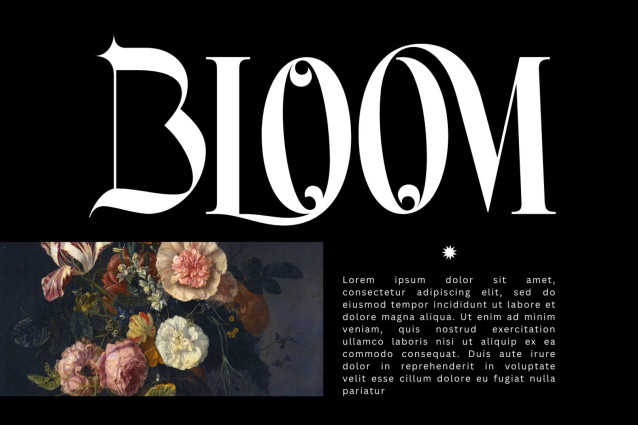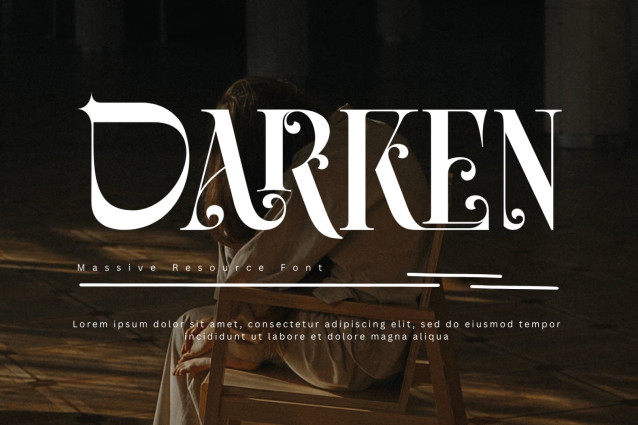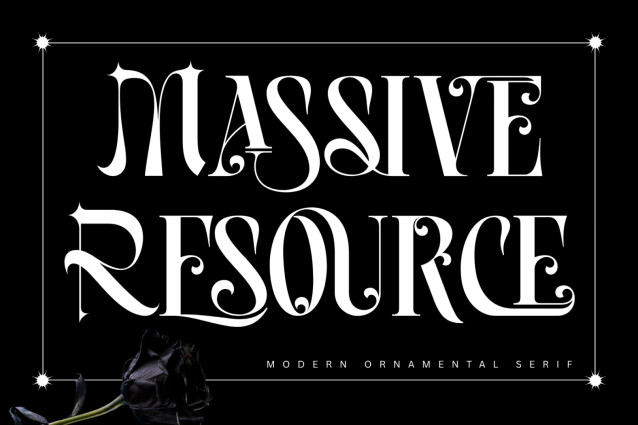
Massive Resource – Elegant Font is an elegant decorative serif display font that blends timeless sophistication with exquisite ornamental details. Inspired by classic Victorian typography and refined Didone aesthetics, this typeface features dramatic high-contrast strokes, graceful curves, and beautifully crafted swashes that add a luxurious and artistic touch to every design. With its ornate terminals, flowing flourishes, and sophisticated letterforms, Massive Resource evokes a sense of vintage charm while maintaining a modern editorial appeal. Each character is thoughtfully designed to create stunning visual impact, making this font perfect for premium and expressive typography.
Massive Resource Font